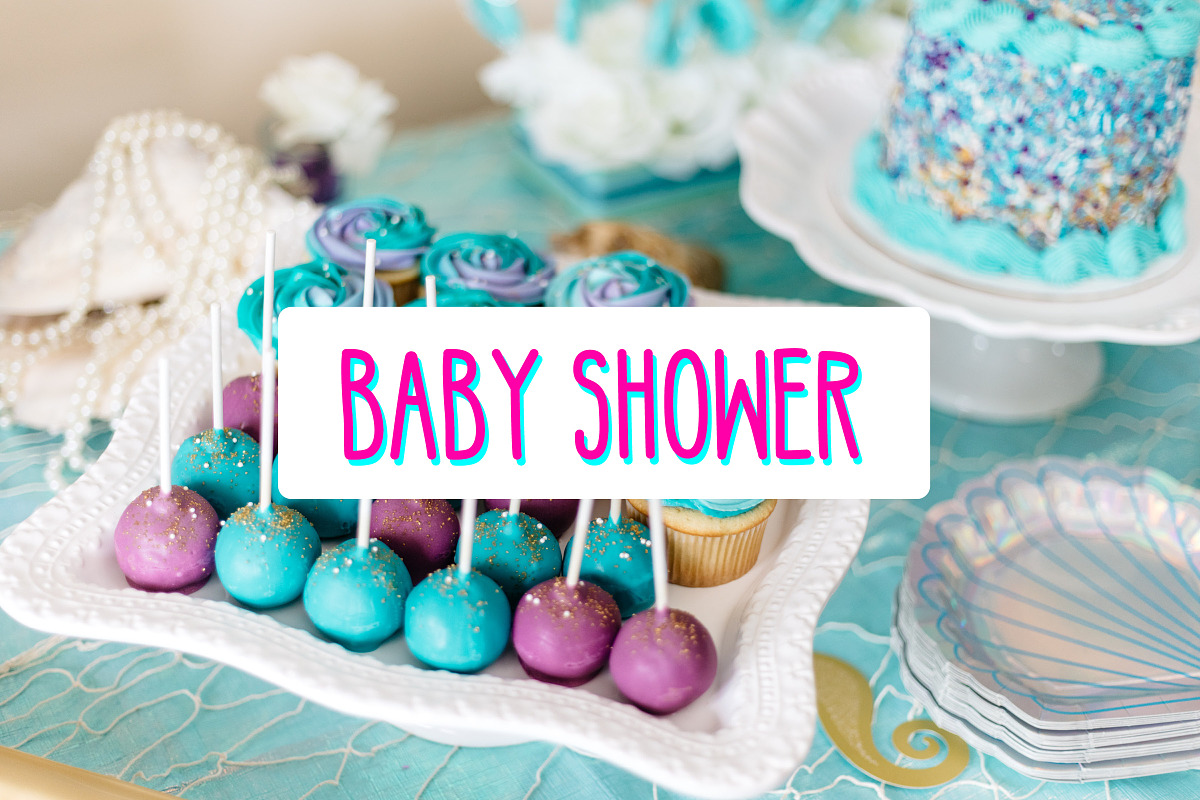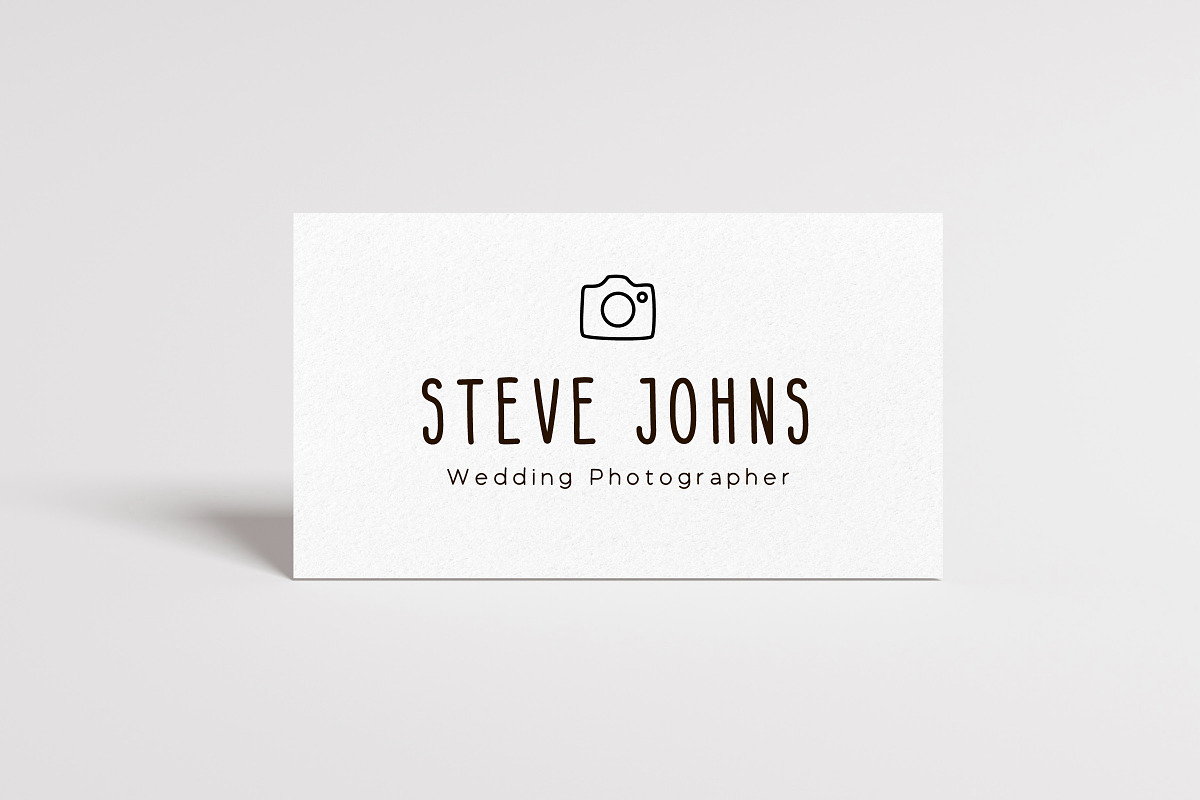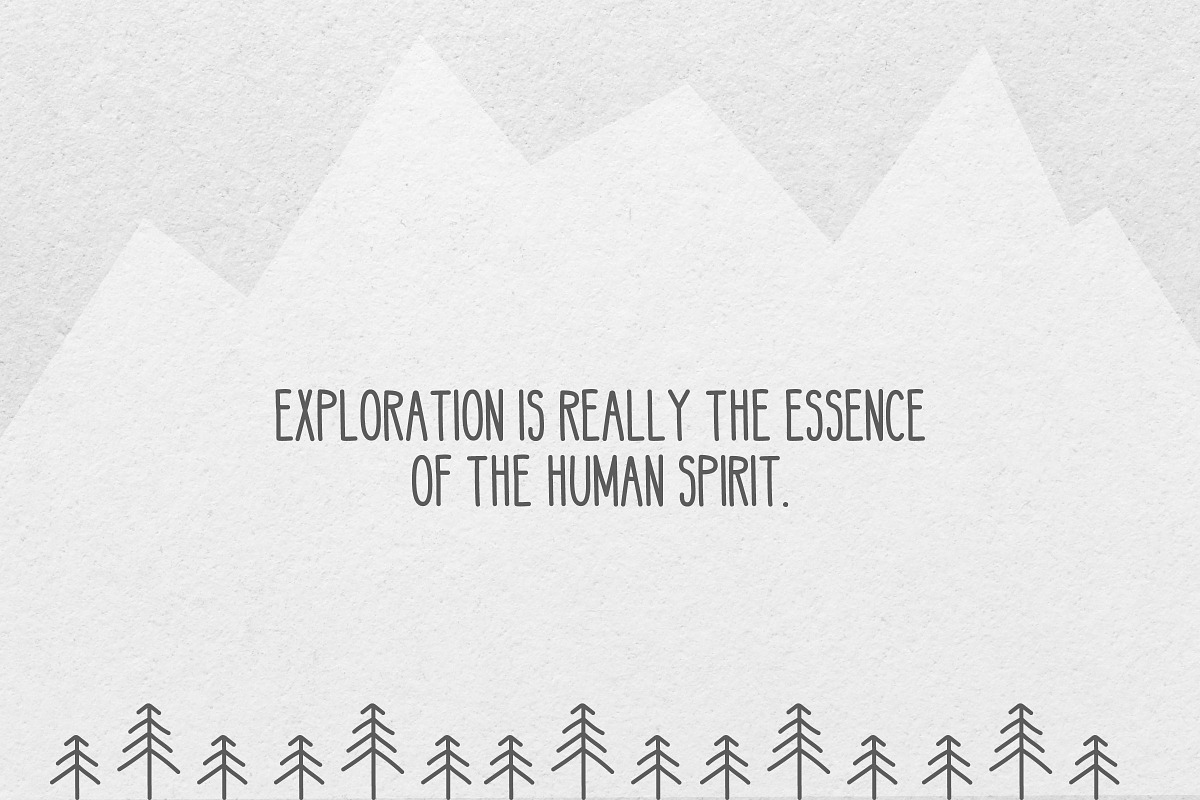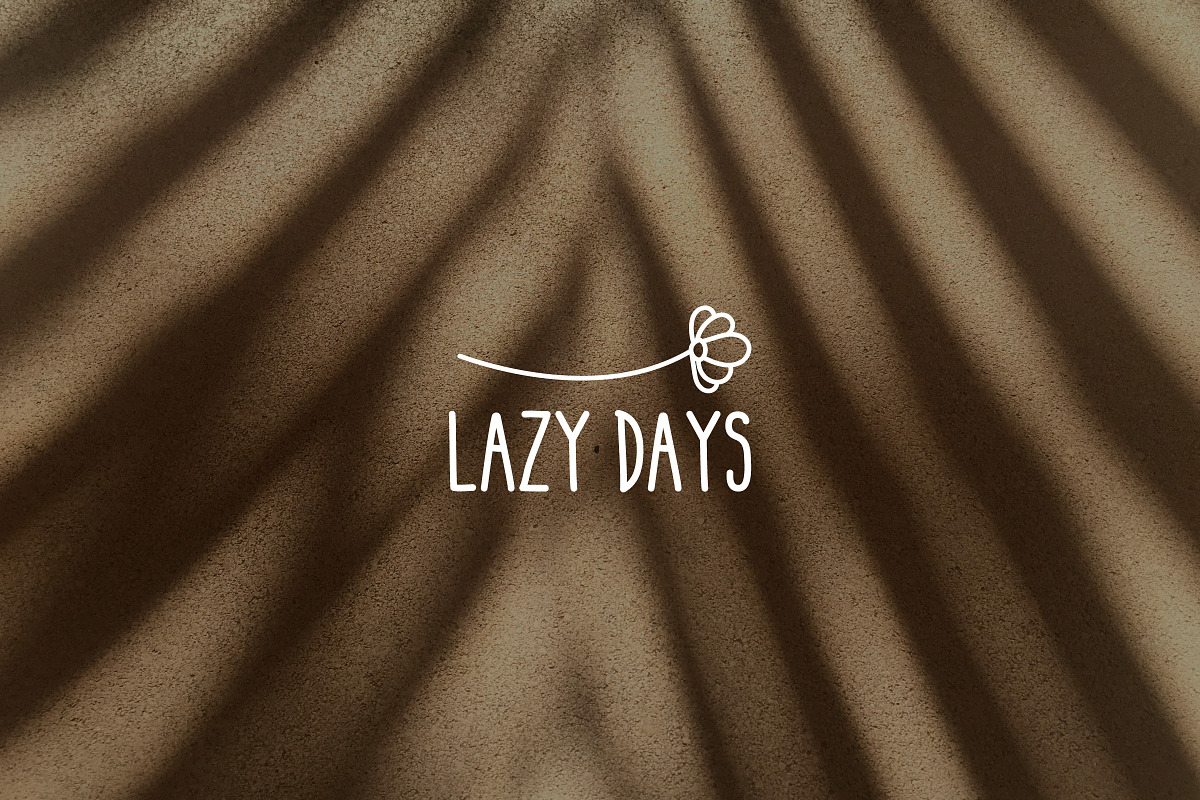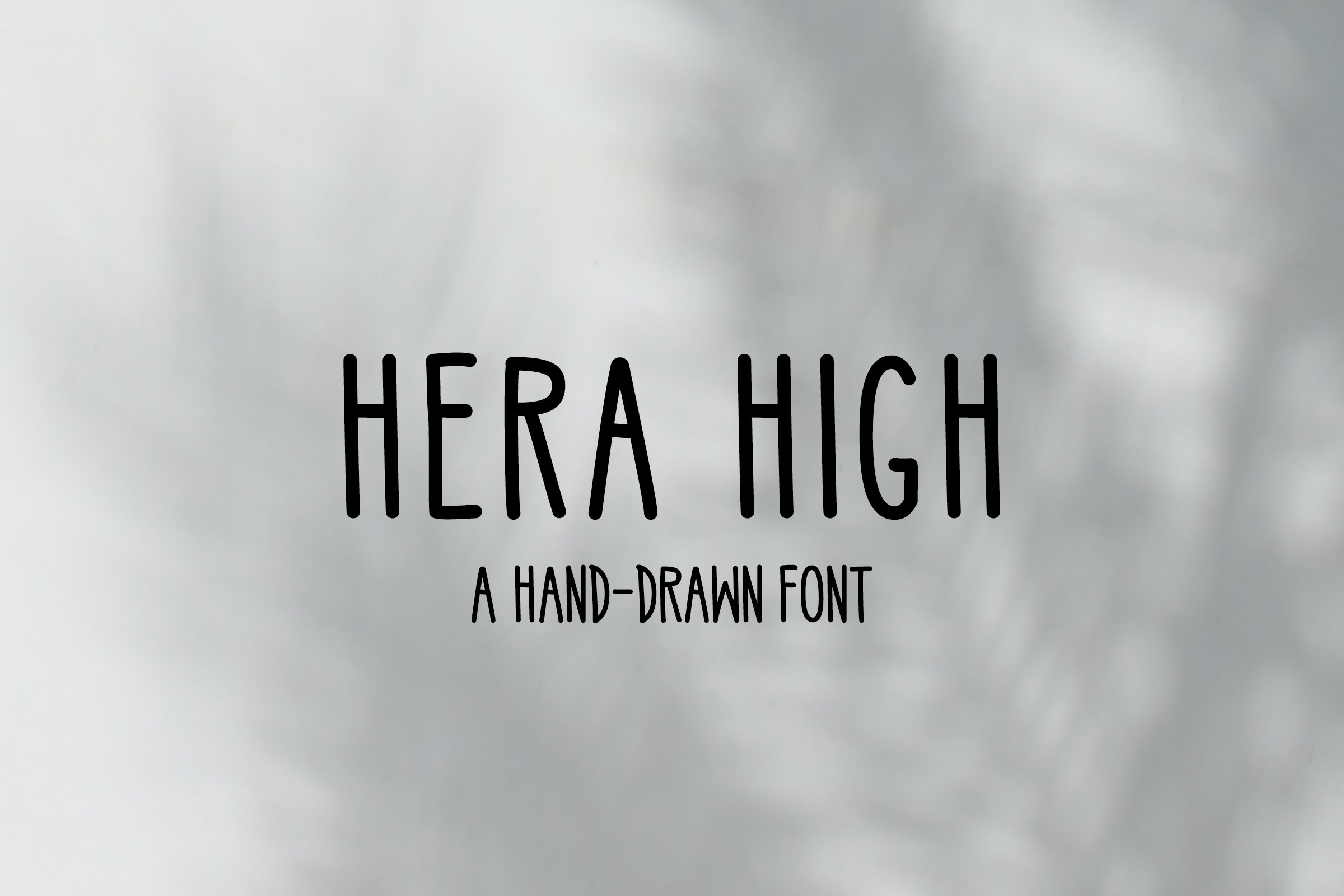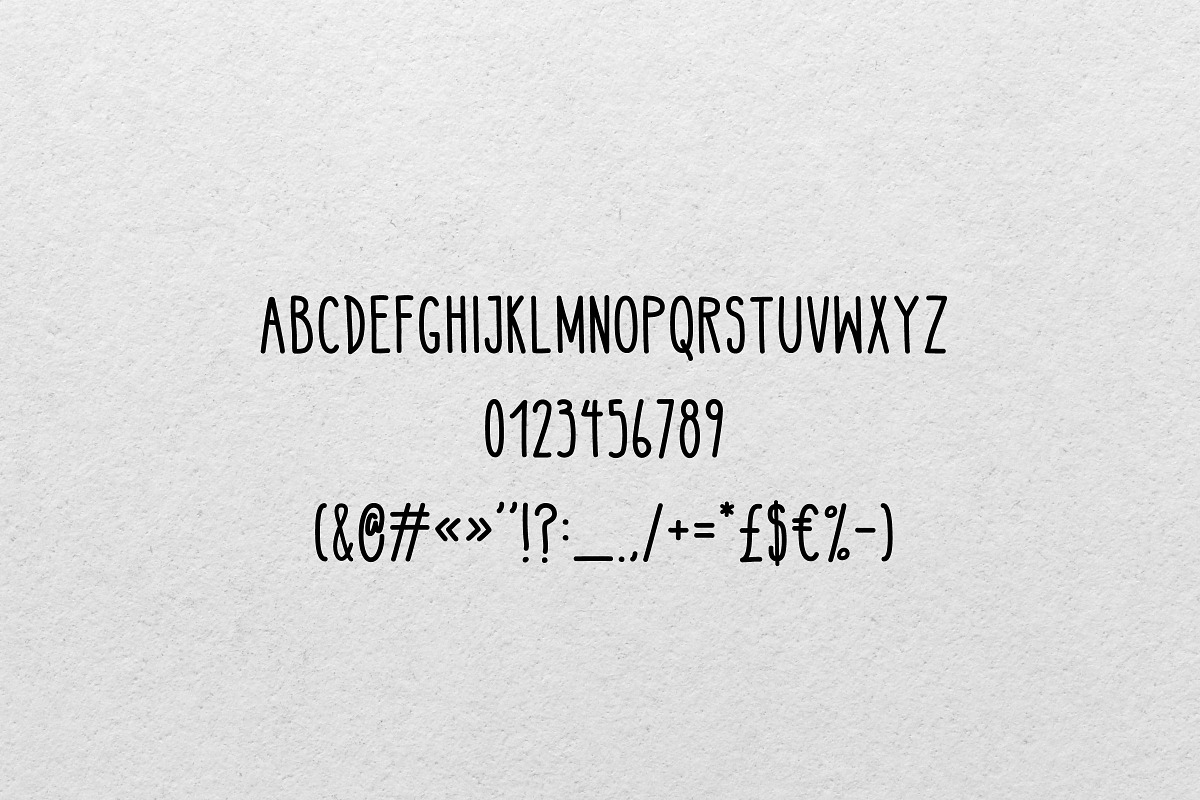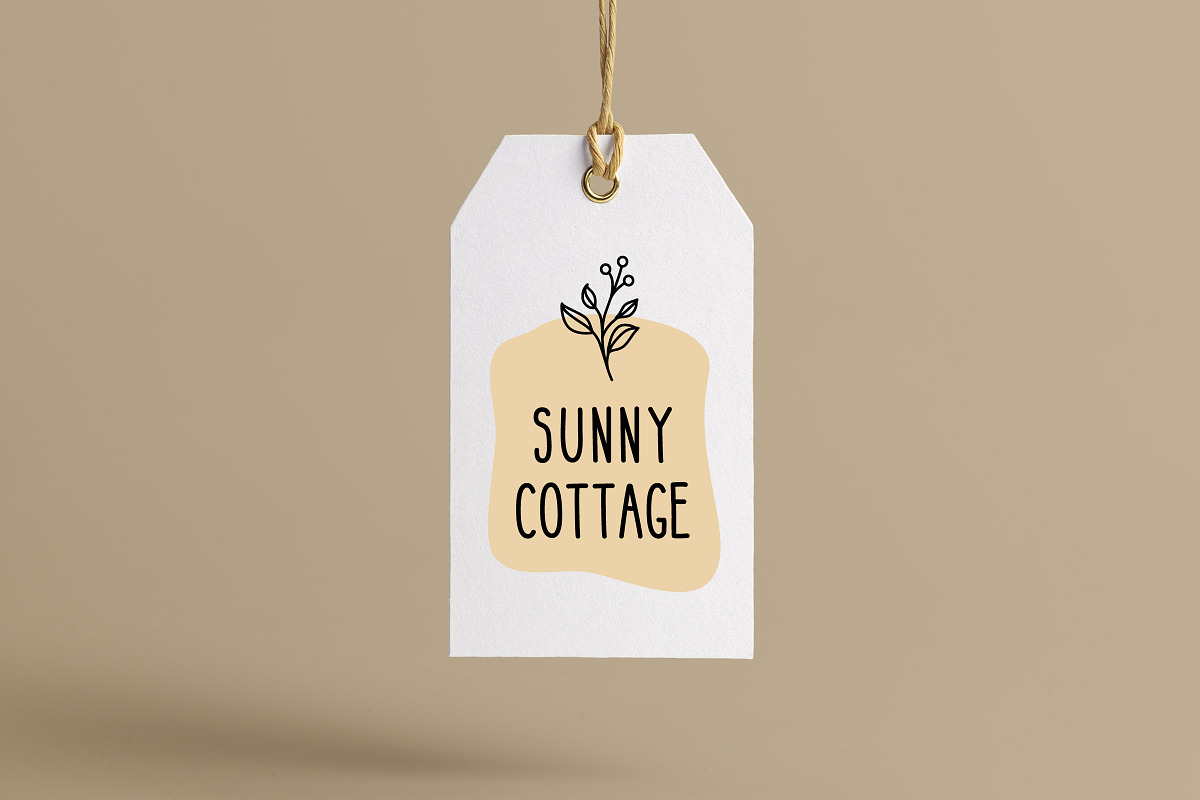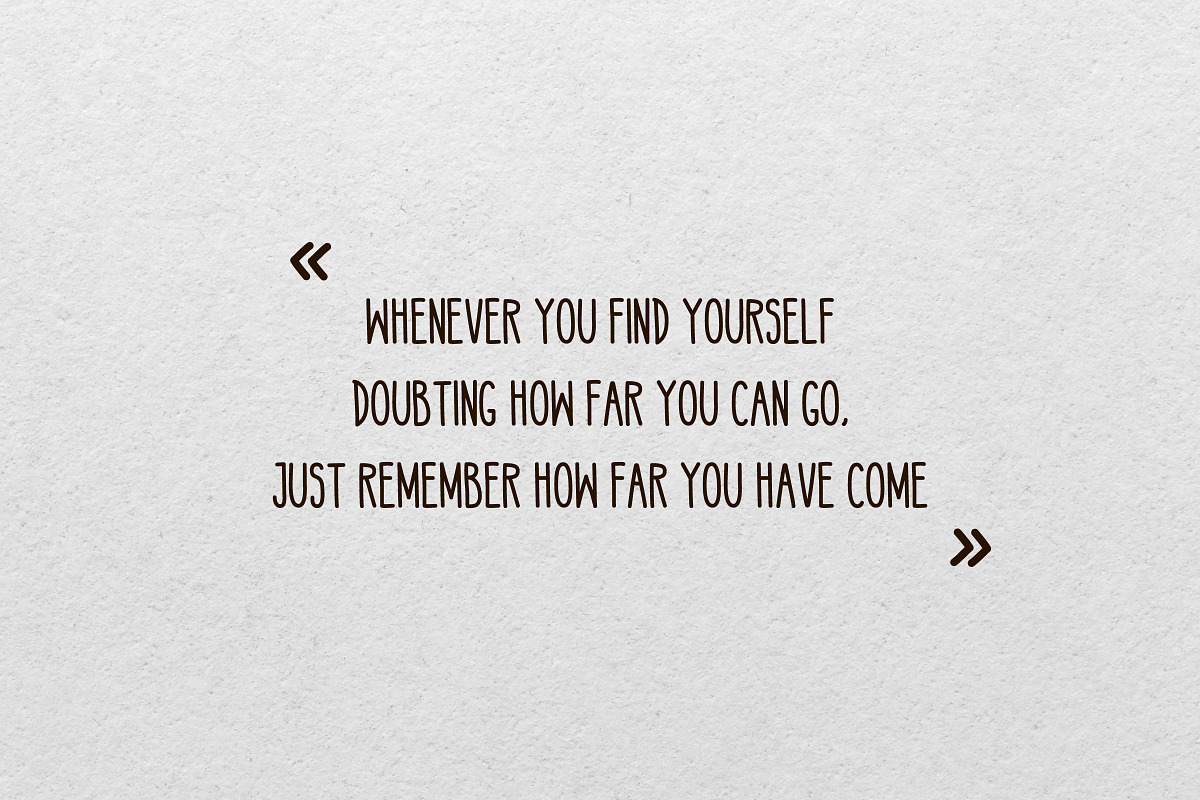
High Hand-Drawn Font, Authentic look
Hand Drawn Font, Bohemian style Font for Branding and Logos. Sans Serif doodle style typeface, Hand written type, Instant Download
This font will be perfect for all yours projects : logos, banding, menus, wedding cards.. It will also be perfect for any social media post, like Instagram